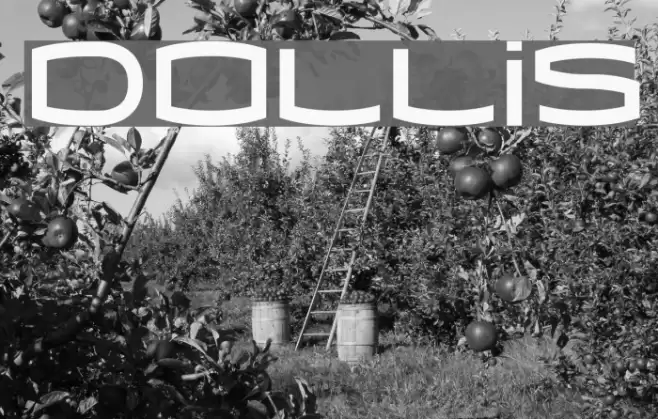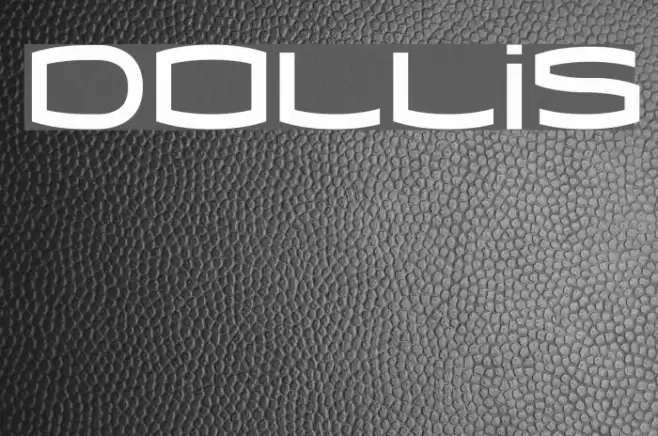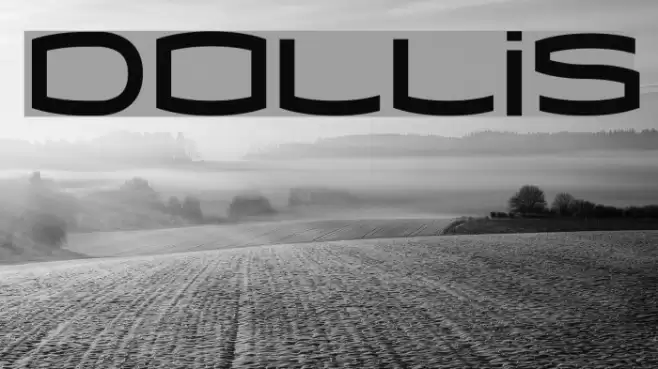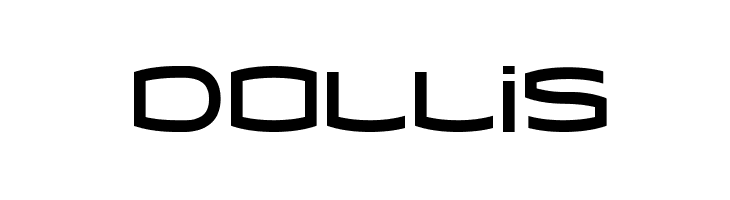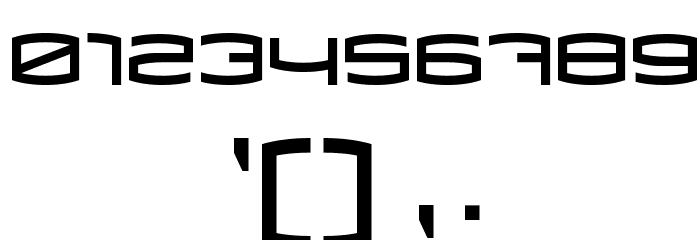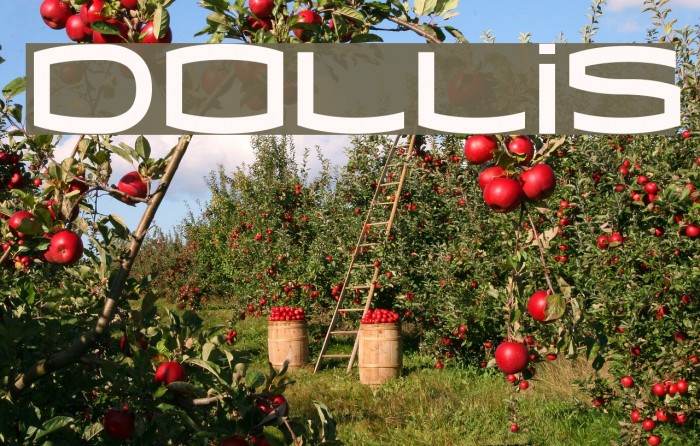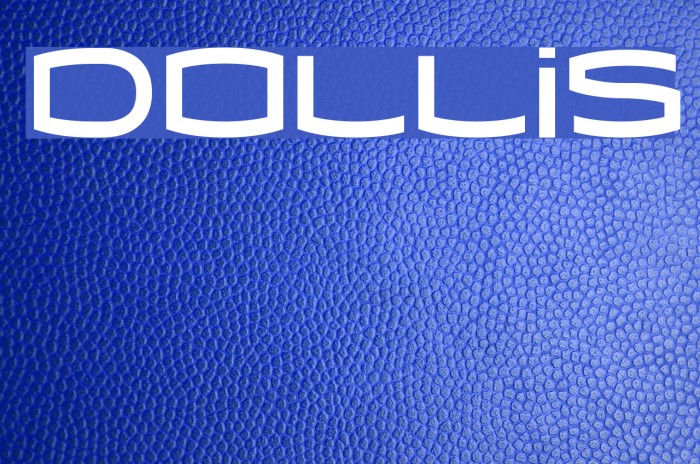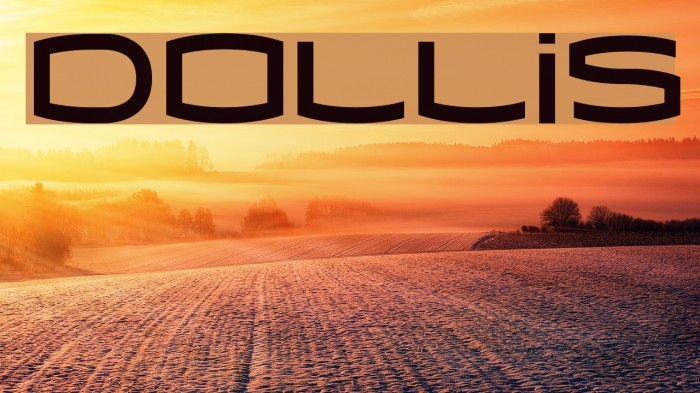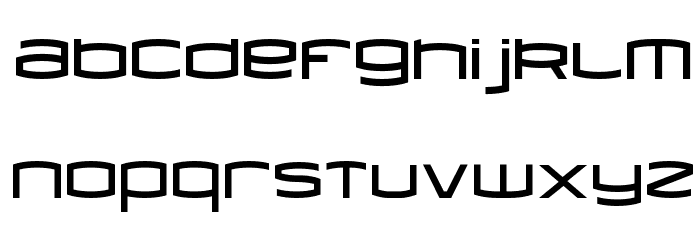
Dollis Font
Dollis Description
This font features a futuristic and geometric design with a distinct angular style. The characters are bold and have a uniform stroke width, creating a strong visual impact. The uppercase and lowercase letters maintain a consistent structure, with sharp edges and a modern aesthetic. The numbers and special characters follow the same design principles, ensuring cohesion across all elements. The font's unique style makes it suitable for projects that require a contemporary and edgy look.
A futuristic, geometric font with bold, angular characters from Uncategorized fonts.